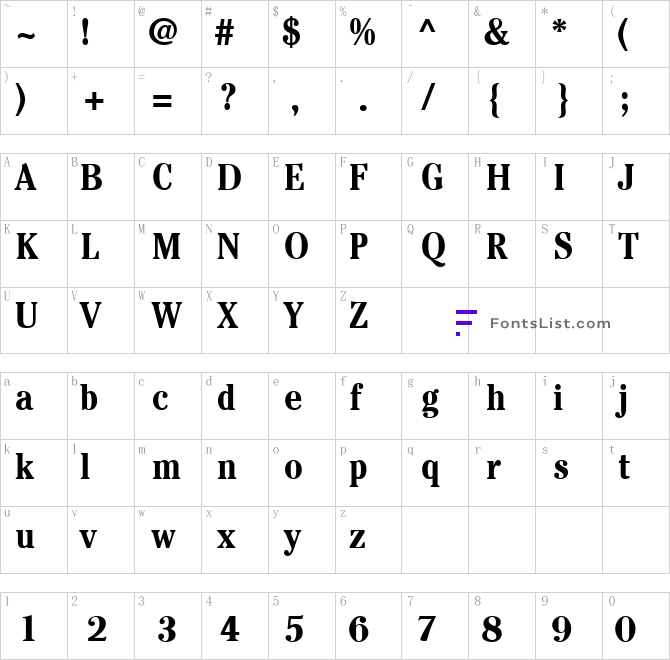
AmenianMaralSSK-Bold.ttf is a very beautiful artistic font, AmenianMaralSSK-Bold.ttf is widely used in the design and printing of various books and pictures,AmenianMaralSSK-Bold.ttf has a strong visual impact,AmenianMaralSSK-Bold.ttf is a commonly used font in newspapers, magazines and books, and is used in posters, e-commerce Poster design, store design, logo design, font design and other fields.AmenianMaralSSK-Bold.